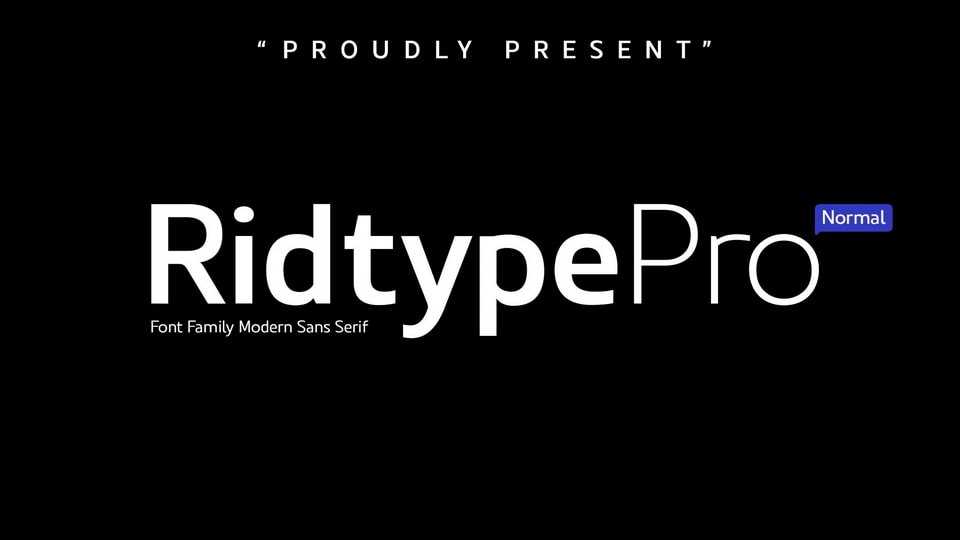
Download Ridtype Pro font, a custom typeface, equipped with a modern semi-classic category type. Ridtype Pro font has been designed as best as possible, both in terms of letter design and the type of weight that is made to be compatible in all roles.
Designer: Ridwan Fadilah